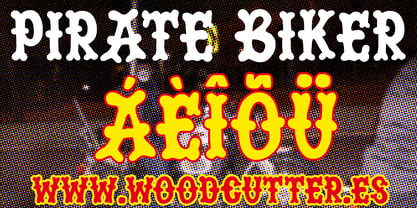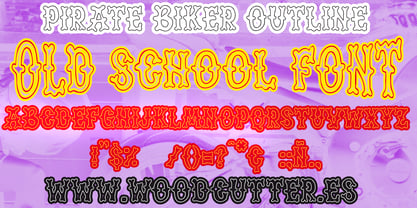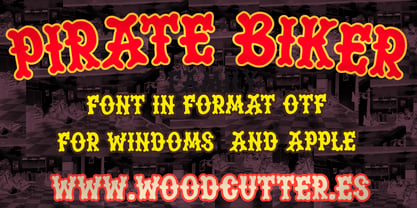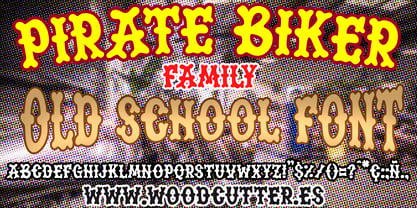
Pirate Biker
by Woodcutter
The Pirate Biker Font Family was designed by Jordi Manero and published by Woodcutter. Pirate Biker contains 2 styles and family package options.
The “Pirate Biker” type family includes two all-caps fonts with full accent support, inspired by the bold fusion of classic western style and the rebellious spirit of biker culture. The main style, Pirate Biker, features solid, thick, and heavy-lettered forms that convey a raw, informal toughness. With bold strokes and an unapologetic design, it evokes leather patches, dusty highways, and slogans stitched into biker jackets. It’s built to make an impact — ideal for posters, album covers, T-shirts, or anything that calls for a wild and untamed energy.
Pirate Biker Outline offers the same structural framework but in a hollow outline format. This variation introduces visual lightness and opens up creative options like layering, transparency, or contrast effects, all while retaining the rugged identity of the font family.
Together, both versions work in harmony, giving designers the freedom to build typographic hierarchies and explore dynamic layouts. “Pirate Biker” is a fearless combination of Wild West grit and biker rebellion — a type family made for projects with a bold, free-spirited soul.